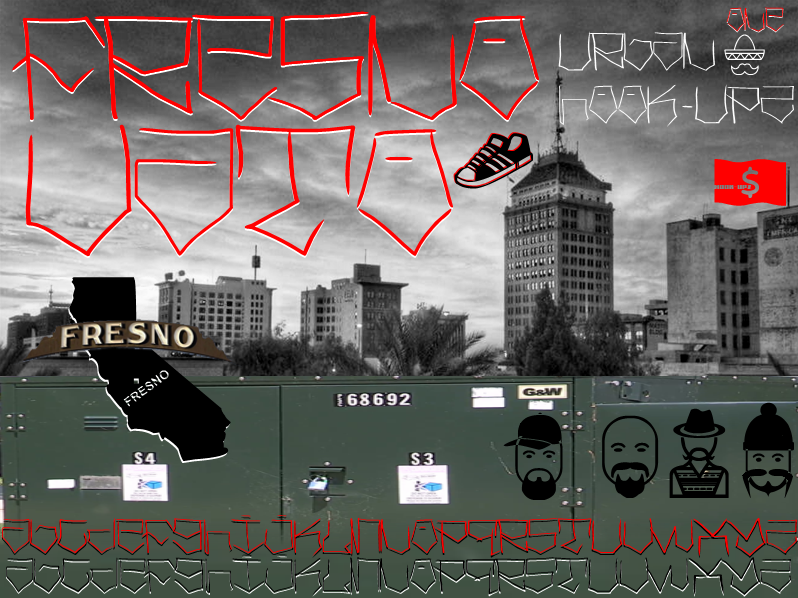
This is a, "Fresno Vato Style", Influenced by the Mexicano Tag style of Central Califa. Brought to you by Creator Urban Hook-upz, just another Vato From Fresno, Hookin' You Up Homie! |